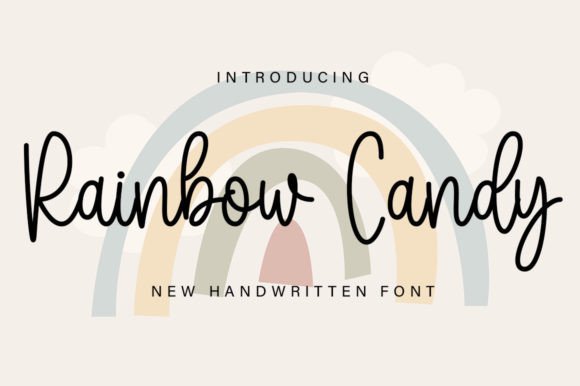
Journey into the World of Rainbow Candy Font, Where Sweetness Meets Sophistication
In the vast digital landscape, where words dance across screens, there exists a font that captivates the senses and transports you to a realm of sheer delight. Allow us to introduce Rainbow Candy Font, a creation of DN Creative, a master of typographic artistry.
Rainbow Candy Font is a delightful handwritten script font, exuding warmth and playfulness in every stroke. Its whimsical curves and charming imperfections evoke a sense of nostalgia, reminding us of childhood dreams and carefree moments.
This font is not just a collection of letters; it's a gateway to endless creative possibilities. Whether you're crafting digital designs, creating social media posts, or embarking on branding projects, Rainbow Candy Font will add a touch of magic to your work. Its versatility and charm make it the perfect choice for a wide range of applications.
With Rainbow Candy Font, you can infuse your designs with a unique personality that stands out from the crowd. Imagine your words dancing across the screen, each letter a burst of color and creativity, captivating your audience and leaving them spellbound.
This font is more than just a tool; it's an expression of your own unique style. Its friendly and casual nature invites readers to immerse themselves in your content, creating a connection that goes beyond words.
So, dive into the world of Rainbow Candy Font, where sweetness meets sophistication. Let your imagination soar as you explore the endless possibilities this font offers. Embrace the joy of creation and watch as your designs blossom into masterpieces that leave a lasting impression.
With Rainbow Candy Font, the world of typography becomes a vibrant playground where your words take center stage. Embrace the magic of this extraordinary font and embark on a creative journey that's sure to captivate and inspire.